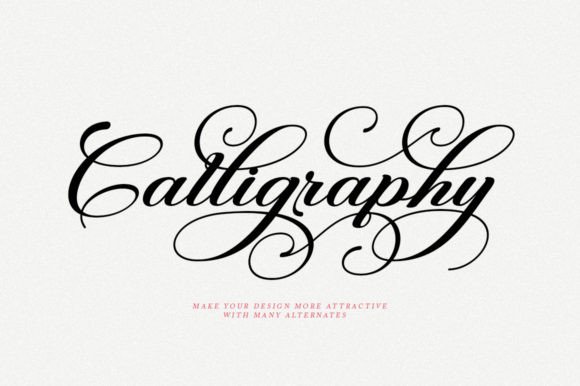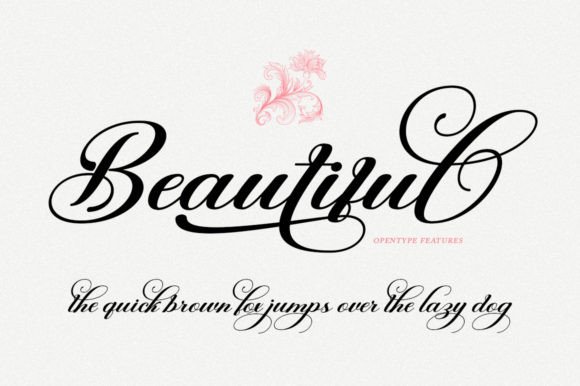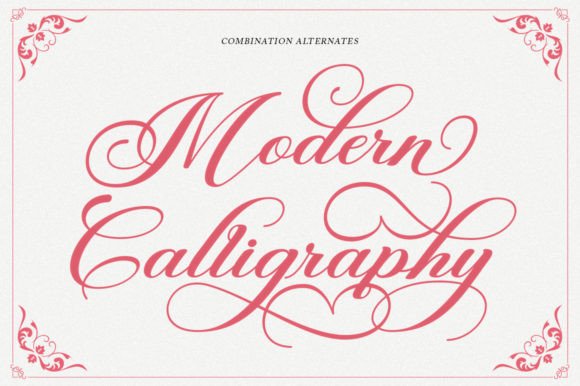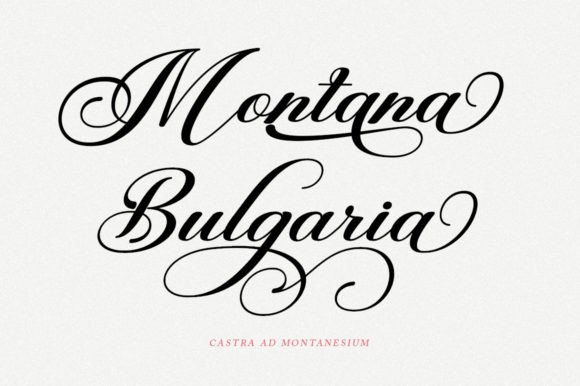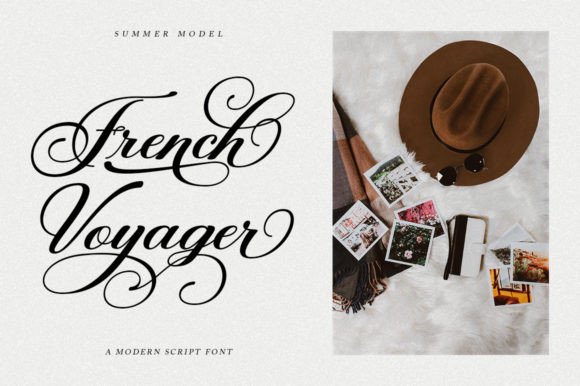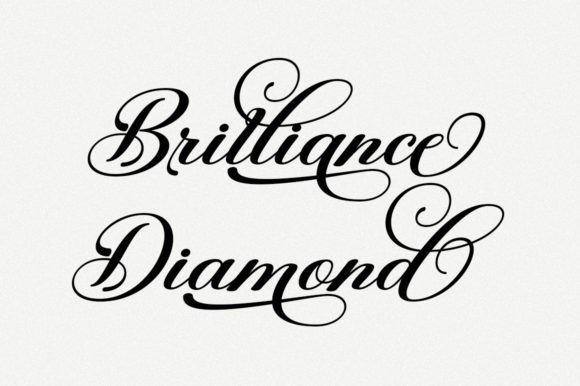
Bunglon Font: Elevate Your Designs with Modern Calligraphy
Are you looking for a font that can add a touch of elegance and sophistication to your designs? Look no further than Bunglon Script, a modern calligraphy design that is perfect for a wide range of creative projects. In this article, we’ll take a closer look at the features and benefits of Bunglon Font and explore how it can be used to elevate your designs.
What is Bunglon Font?
Bunglon Font is a modern calligraphy design that includes a regular style, as well as swashes and ligatures to give your text a unique and personalized touch. This font is perfect for designers and crafters who want to add a touch of elegance and sophistication to their work. With its casual and beautiful design, Bunglon Script is ideal for a wide range of applications, from logos and product packaging to wedding invitations and branding.
Key Features of Bunglon Font
• Modern Calligraphy Design: Bunglon Script features a modern calligraphy design that is both elegant and sophisticated.
• PUA Encoded: This font is PUA encoded, which means you can access all of the amazing glyphs and ligatures with ease.
• Swashes and Ligatures: Bunglon Script includes swashes and ligatures to give your text a unique and personalized touch.
• Casual and Beautiful: This font has a casual and beautiful design that is perfect for a wide range of creative projects.
Uses for Bunglon Font
Bunglon Script is a versatile font that can be used for a wide range of creative projects, including:
• Logos: Use Bunglon Script to create a unique and memorable logo for your business or brand.
• Product Packaging: Add a touch of elegance and sophistication to your product packaging with Bunglon Font.
• Wedding Invitations: Create beautiful and personalized wedding invitations with Bunglon Script.
• Branding: Use Bunglon Font to create a consistent brand identity across all of your marketing materials.
• Headlines: Add a touch of drama and flair to your headlines with Bunglon Script.
• Signage: Use Bunglon Font to create eye-catching signage for your business or event.
• Labels: Add a touch of elegance and sophistication to your labels with Bunglon Script.
• Signatures: Use Bunglon Font to create a unique and personalized signature.
• Book Covers: Create a beautiful and eye-catching book cover with Bunglon Script.
• Posters: Use Bunglon Font to create a stunning poster for your next event or promotion.
• Quotes: Add a touch of elegance and sophistication to your quotes with Bunglon Script.
Why Choose Bunglon Font?
There are many reasons why Bunglon Font is a great choice for designers and crafters, including:
• Elegant and Sophisticated Design: Bunglon Script features an elegant and sophisticated design that is perfect for a wide range of creative projects.
• Versatile: This font is versatile and can be used for a wide range of applications.
• Easy to Use: Bunglon Font is PUA encoded, which means you can access all of the amazing glyphs and ligatures with ease.
• High-Quality: This font is high-quality and features a clean and crisp design.
In conclusion, Bunglon Font is a modern calligraphy design that is perfect for designers and crafters who want to add a touch of elegance and sophistication to their work. With its casual and beautiful design, swashes and ligatures, and PUA encoding, Bunglon Script is a versatile font that can be used for a wide range of creative projects. Whether you’re looking to create a logo, product packaging, wedding invitations, or more, Bunglon Font is a great choice.